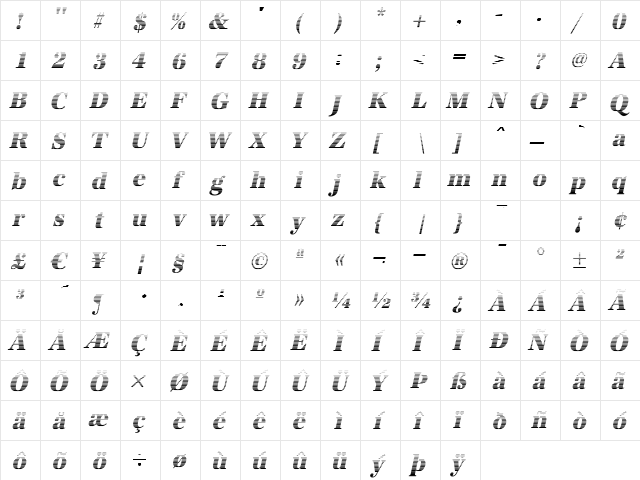
IrisBeckerGradientC-ExBold Italic Font Preview
Design Context for IrisBeckerGradientC-ExBold Typeface
IrisBeckerGradientC-ExBold offers clean, dependable letterforms without strong stylistic allegiance, making it a practical choice for designers who need flexibility. The dynamic lean of this cut emphasises speed and emphasis in any layout. The heavy weight commands attention and anchors typographic hierarchies.